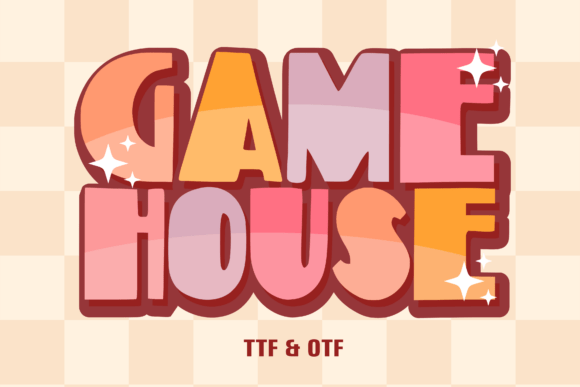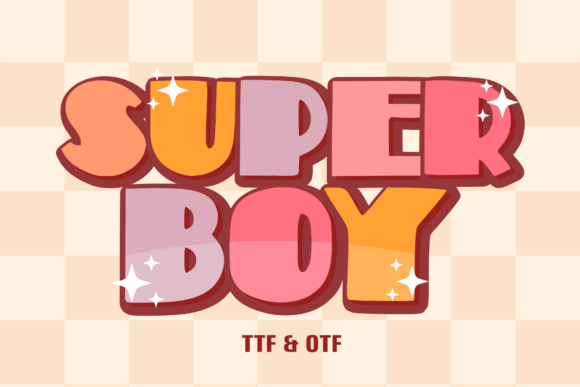
Introducing Battle Box Font: Unleash Fun and Imagination in Your Designs
Are you a designer, crafter, or creative enthusiast looking for a font that can add a dash of fun and playfulness to your projects? Look no further than Battle Box Font, a children’s play font that’s perfect for bringing imagination and excitement to your designs. With its retro style and appearance, this font is sure to offer a promise for a variety of creative endeavors.
What is Battle Box Font?
Battle Box Font is a unique and vibrant font designed specifically for creative projects that require a playful touch. Its retro style and aesthetic elements make it an excellent choice for designers and crafters who want to add a pop of color and fun to their designs. Whether you’re working on a poster, sticker, comic, children’s book, or any other project, Battle Box Font is sure to bring a smile to your audience’s faces.
Key Features of Battle Box Font
• Retro Style: Battle Box Font boasts a distinctive retro style that’s reminiscent of classic children’s books and play materials.
• Playful Aesthetic: The font features playful aesthetic elements that are sure to capture the imagination of your audience.
• Versatile: Battle Box Font is suitable for a wide range of creative projects, from posters and stickers to comics and children’s books.
• Easy to Read: Despite its playful nature, Battle Box Font is easy to read, making it perfect for body text and headlines.
Creative Use Cases for Battle Box Font
Battle Box Font is an incredibly versatile font that can be used in a variety of creative projects. Here are some ideas to get you started:
• Children’s Books: Add a touch of whimsy and fun to your children’s book with Battle Box Font.
• Posters and Flyers: Create eye-catching posters and flyers that grab attention with this playful font.
• Stickers and Labels: Use Battle Box Font to add a pop of color and fun to your stickers and labels.
• Comics and Cartoons: Bring your comics and cartoons to life with this fun and playful font.
• Crafting and DIY Projects: Add a touch of personality to your crafting and DIY projects with Battle Box Font.
Tips for Using Battle Box Font
To get the most out of Battle Box Font, here are some tips to keep in mind:
• Experiment with Colors: Battle Box Font looks great in bright, bold colors. Experiment with different color combinations to find the perfect look for your project.
• Mix and Match: Don’t be afraid to mix and match Battle Box Font with other fonts to create a unique look.
• Use it Sparingly: While Battle Box Font is playful and fun, it can be overwhelming if used too much. Use it sparingly to create a balanced design.
Battle Box Font is a fun and playful font that’s perfect for designers, crafters, and creative enthusiasts who want to add a touch of imagination and excitement to their projects. With its retro style and aesthetic elements, this font is sure to bring a smile to your audience’s faces. Whether you’re working on a children’s book, poster, sticker, or any other project, Battle Box Font is a great choice. So why wait? Download Battle Box Font today and unleash your creativity!